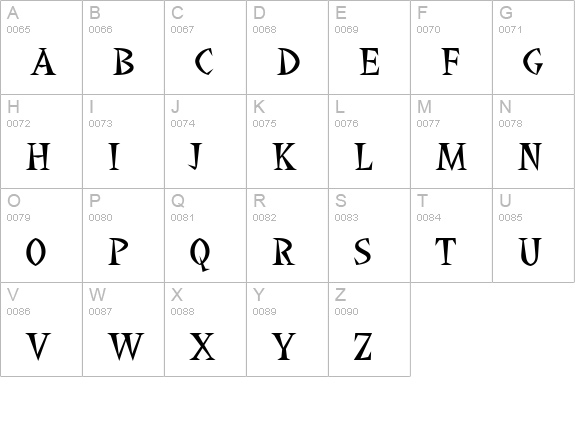
Sebastian Font Details
Introducing Sebastian, a stunningly elegant font that effortlessly combines classic sophistication with modern charm. This versatile typeface is perfect for adding a touch of refinement to any design project, whether it's for a logo, branding materials, invitations, or editorial layouts. Sebastian's graceful letterforms are meticulously crafted, showcasing intricate details that exude a sense of timeless beauty. Its flowing curves and delicate serifs create a harmonious balance, making each character a work of art in itself. This font's legibility and readability are second to none, ensuring that your message will be conveyed with clarity and style. What sets Sebastian apart is not only its impeccable design but also the fact that it is available for free. That's right, you can now easily access and download this exceptional font at FontsMarket.com, where a vast collection of high-quality fonts awaits. With Sebastian in your creative arsenal, you have the freedom to bring your ideas to life without any financial constraints. Whether you're a professional designer, a creative enthusiast, or someone looking to add a touch of elegance to personal projects, Sebastian is the perfect choice. Its versatility, elegance, and affordability make it a valuable asset that will elevate your designs to new heights. So why wait? Download Sebastian today and unlock the endless possibilities it offers.